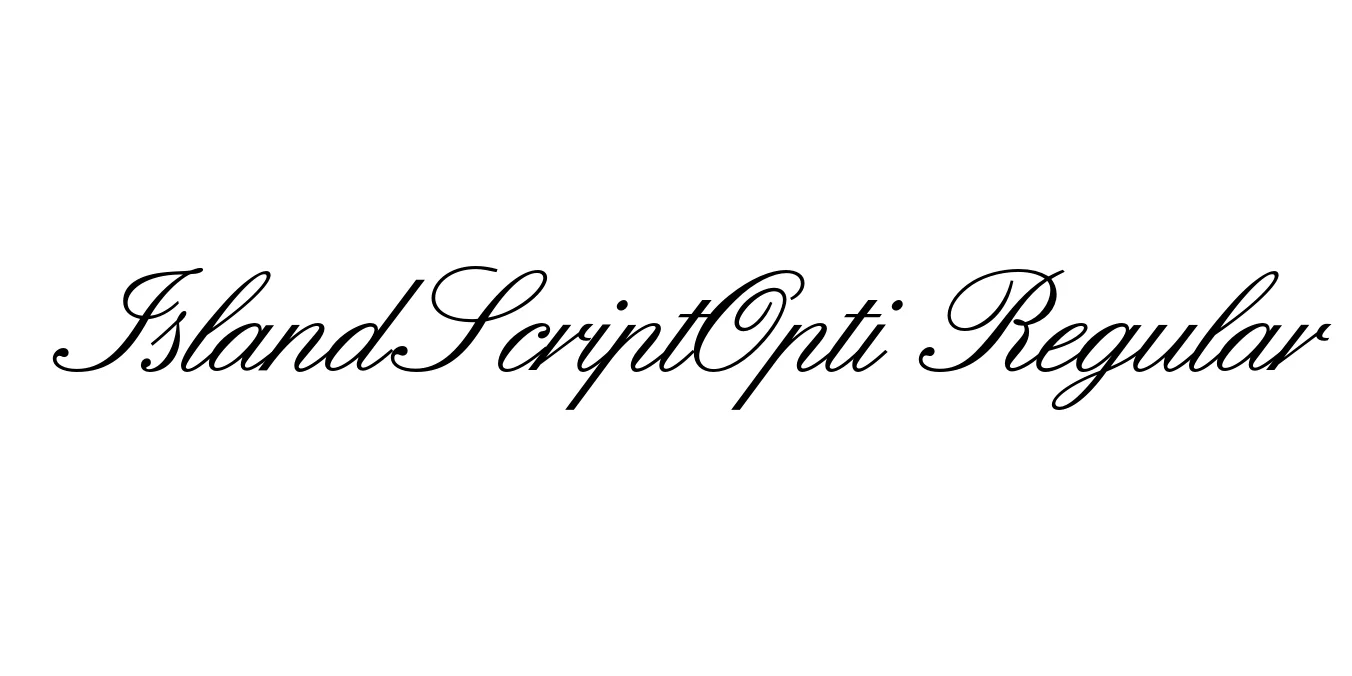
IslandScriptOpti Regular
Designed by Castcraft Software Inc.
IslandScriptOpti Regular is a refined script typeface that originates from the renowned OptiFont collection produced by Castcraft Software Inc. This typeface captures the fluid and rhythmic nature of 20th-century brush lettering, characterized by its elegant, connecting strokes and a slightly informal, handwritten aesthetic. It evokes a sense of nostalgia, reminiscent of mid-century travel advertisements and high-end retail signage, providing a blend of sophistication and approachable warmth.
The font is celebrated for its ability to maintain legibility while offering the artistic flair of manual calligraphy. Historically, it serves as a digital revival of classic script faces used in the 1940s and 50s, making it a staple for designers aiming to recreate a vintage or tropical vibe. Its consistent weight and graceful loops make it particularly effective for display purposes where a personalized, human touch is required without sacrificing professional quality.
IslandScriptOpti Regular Best Uses
Perfect for creating logos for luxury resorts, spas, or boutique fashion brands.
Excellent for invitations, save-the-date cards, and formal event programs.
Effective for headlines in lifestyle magazines and retro-themed travel posters.
Ideal for stylized quotes and elegant overlays on lifestyle photography.